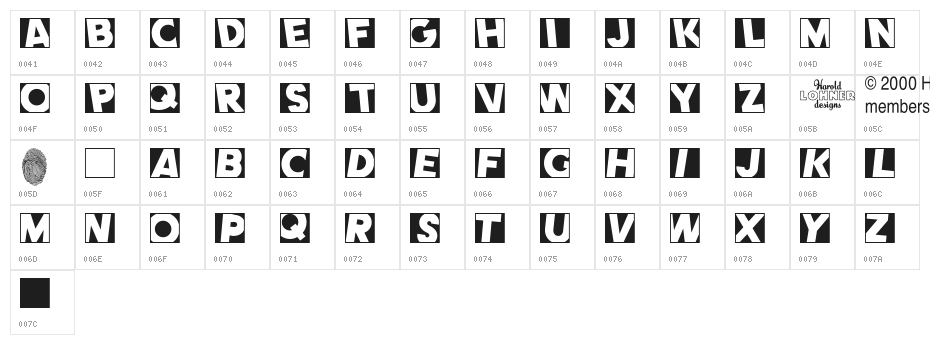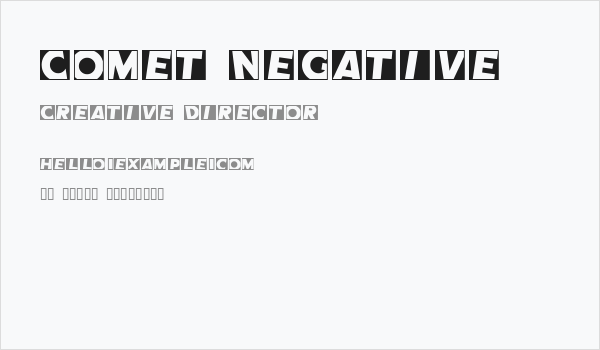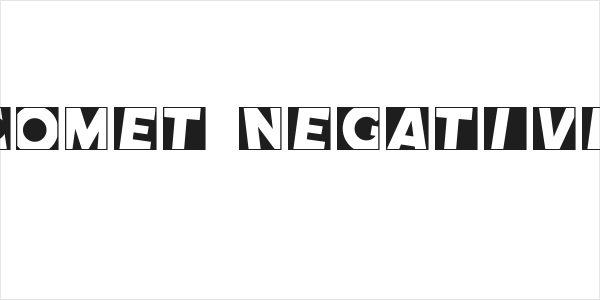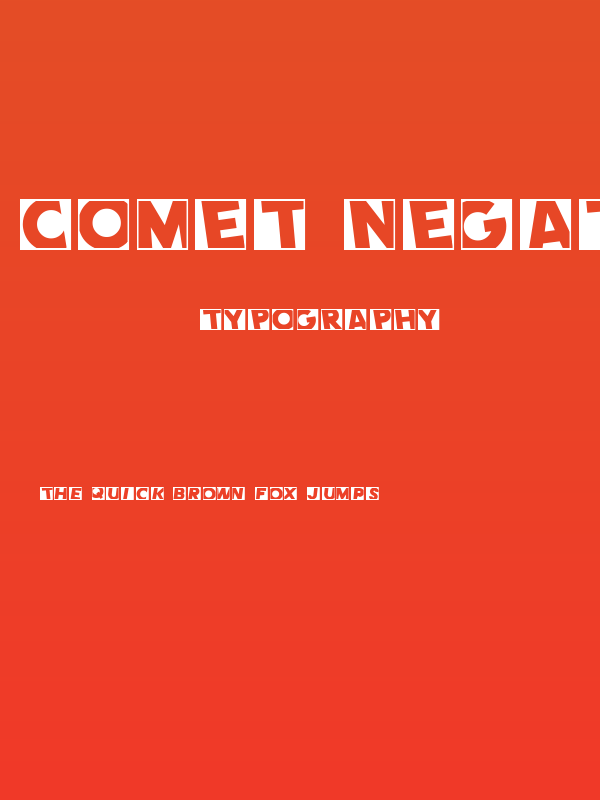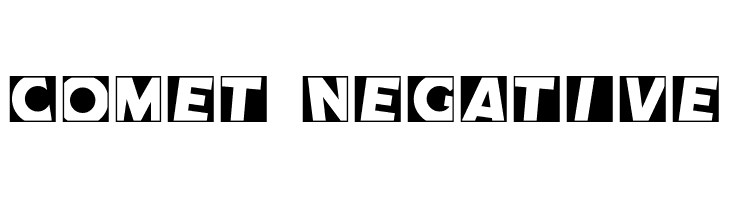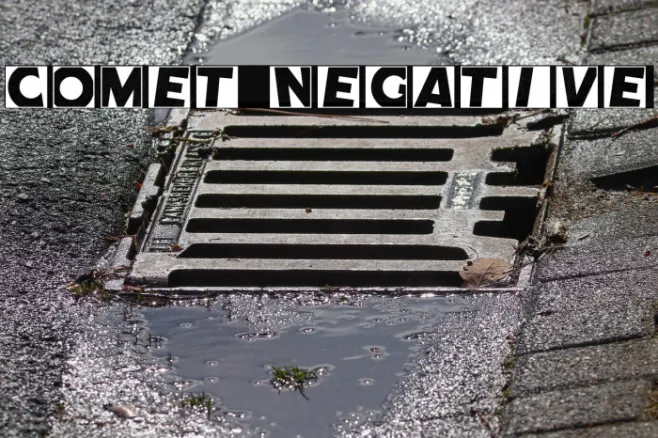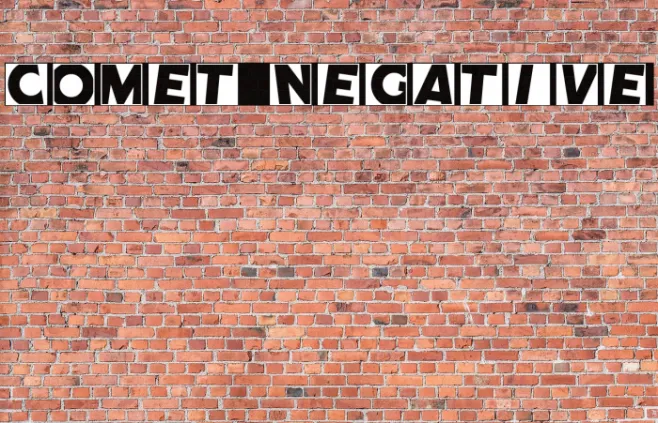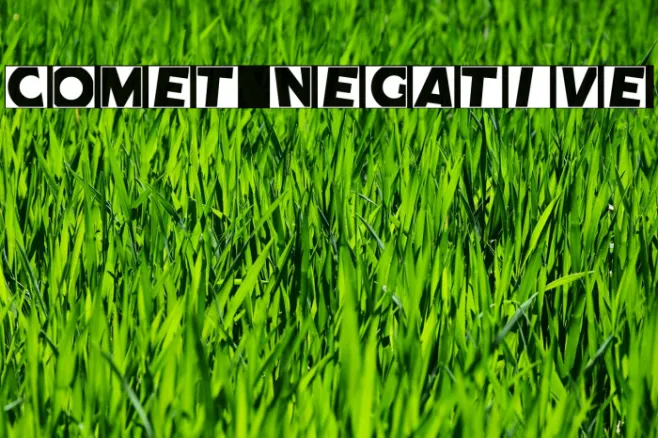
Comet Negative Font
Comet Negative Description
This font features a bold and playful design with each letter encapsulated in a square, creating a striking negative space effect. The characters are uppercase and exhibit a quirky, uneven style that adds a dynamic and energetic feel. The boldness of the letters is emphasized by the high contrast between the black background and the white letterforms. This font is perfect for projects that require a fun and eye-catching aesthetic, such as children's book covers, playful branding, or event posters. The unique design ensures that each letter stands out, making it ideal for headlines or titles where impact is essential.
| Overall Style | Playful, Energetic, Modern |
| Proposed Projects | Children's books, playful branding, event posters, eye-catching headlines. |